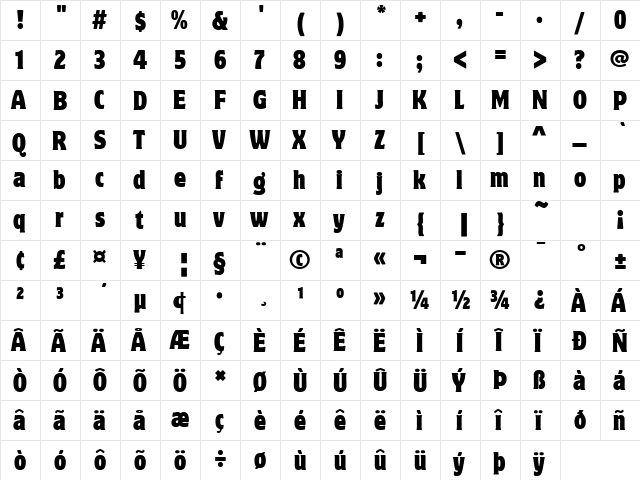
MotterCorpusITC-Condensed Regular
Design Context for MotterCorpusITC-Condensed Typeface
MotterCorpusITC-Condensed offers clean, dependable letterforms without strong stylistic allegiance, making it a practical choice for designers who need flexibility. The condensed width makes it efficient for tight spaces without sacrificing legibility.